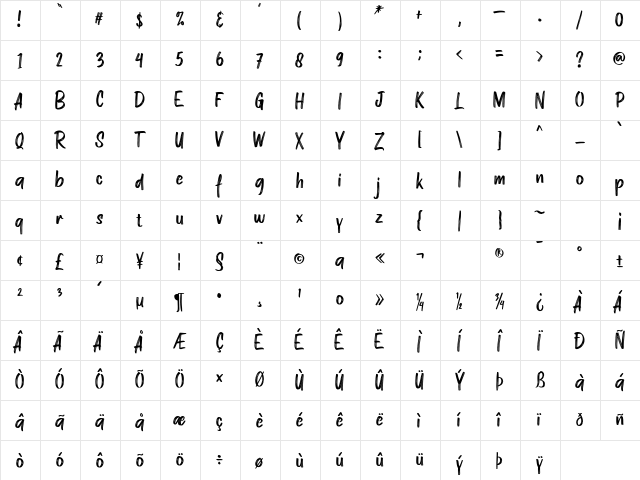
ZAMRACK Regular
| Foundry | Alit Design |
| Designer | Alit Suarnegara |
Design Context for ZAMRACK Typeface
ZAMRACK is a composed and adaptable typeface that performs quietly and consistently across a wide range of design contexts.